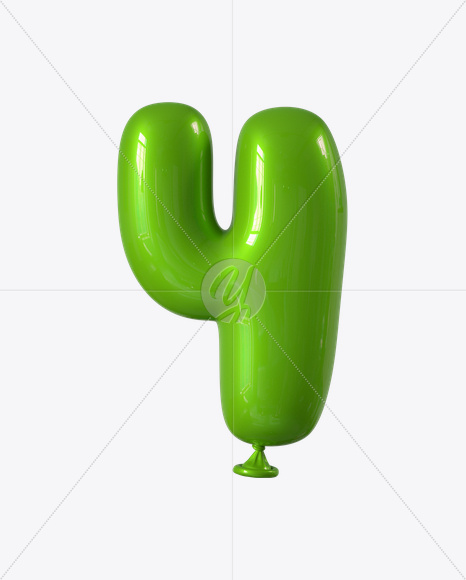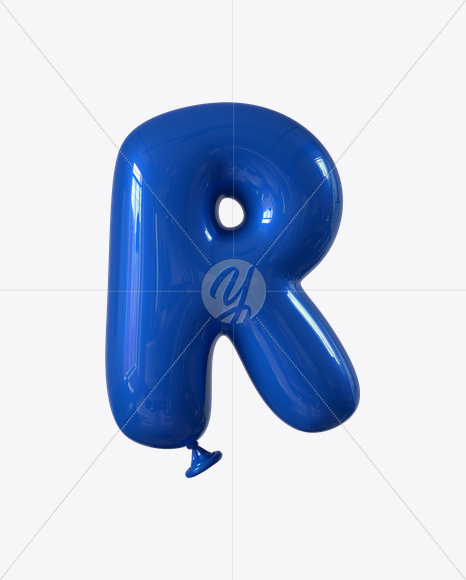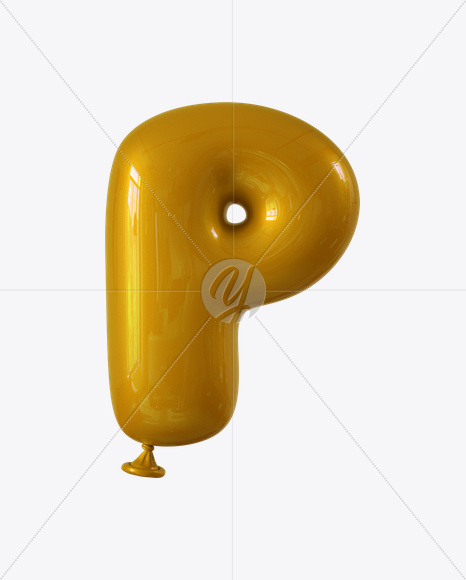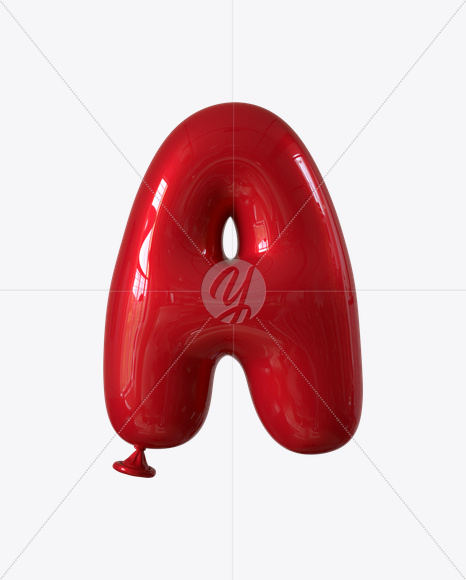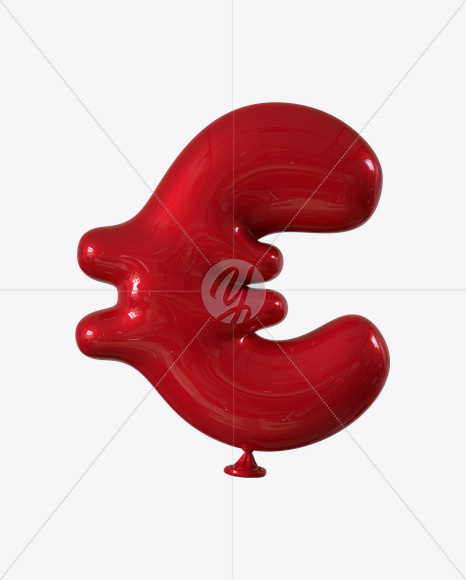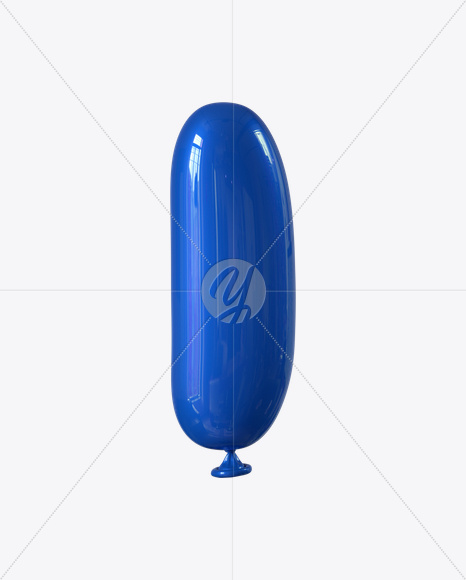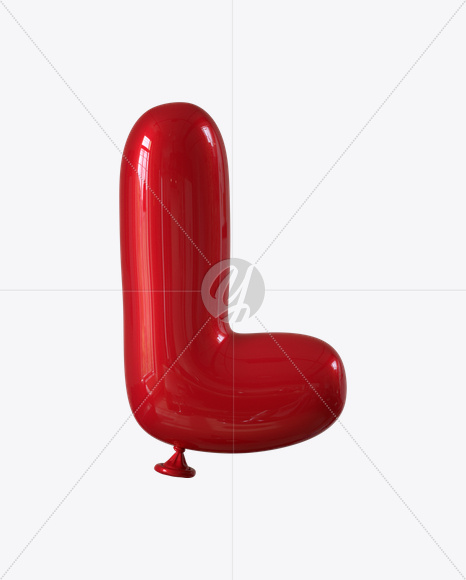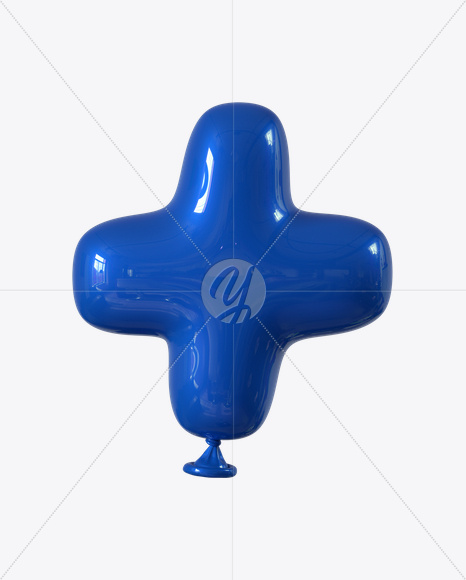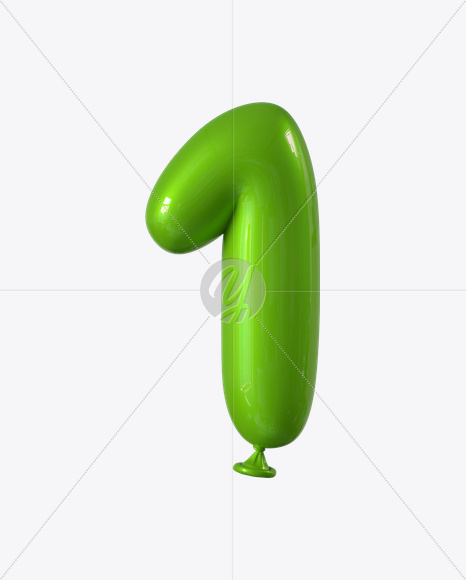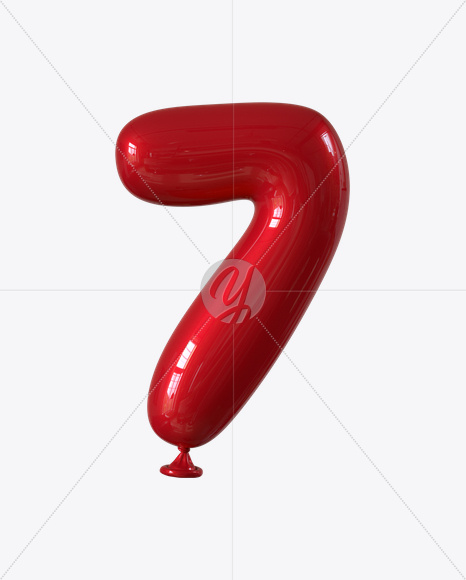
Endless Happiness
Happy Balloon Font is yet another variation of our balloons-bound alphabets. Positive multicolor Happy Balloon Font makes your happiness even deeper and lasts longer.